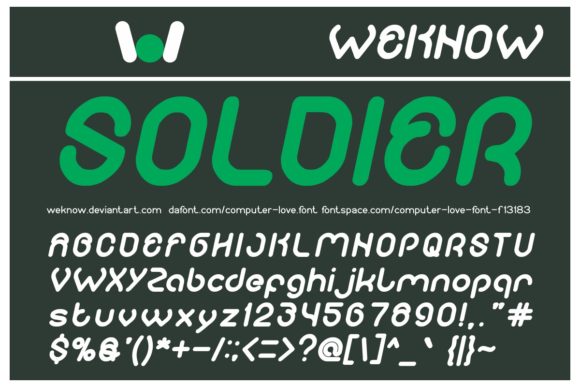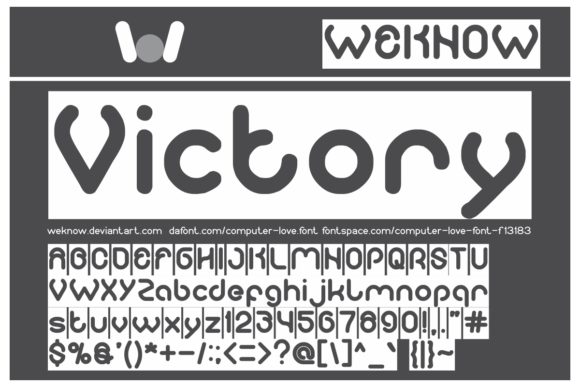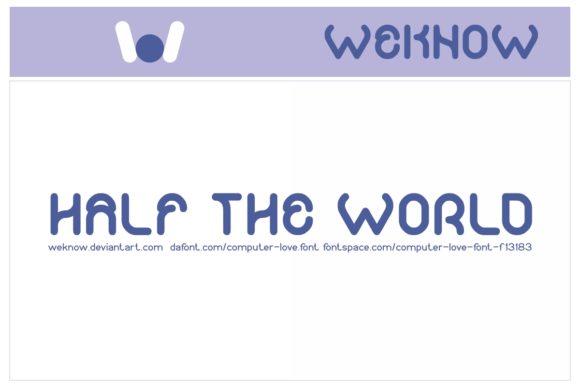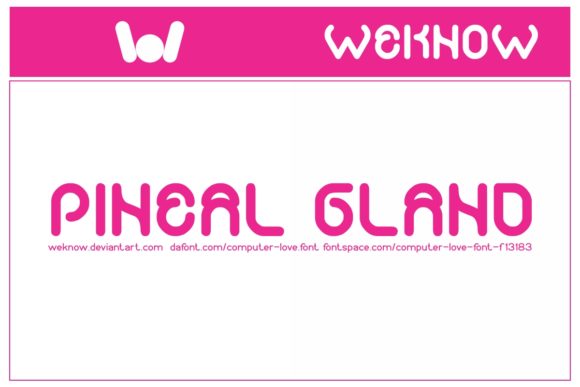
Introduction to Computer Love Font
Computer Love celebrates abstract shapes in all their eclectic beauty.
This playfully conceptual display font typeface font will look truly outstanding in a wide range of contexts .